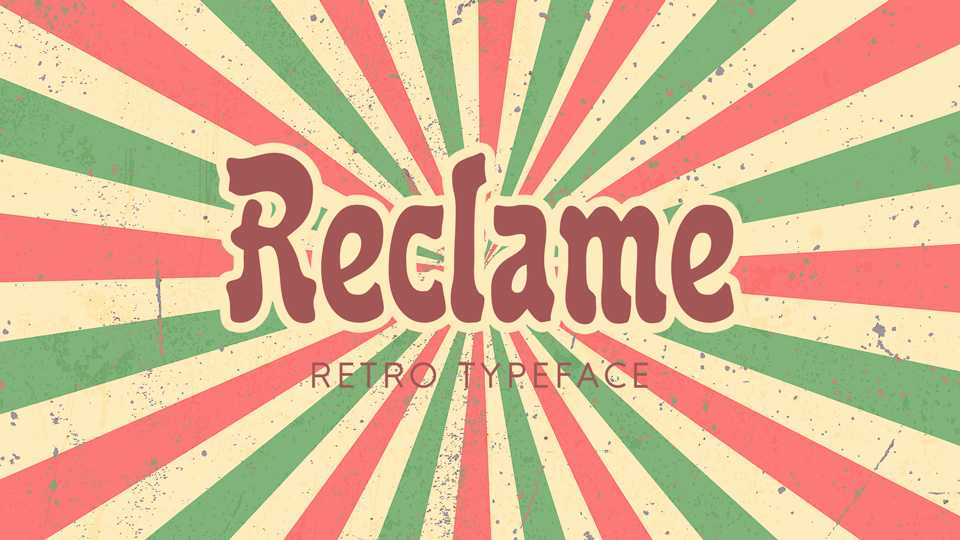
Download Reclame font, a fancy retro typeface based on an early 19th century type. Reclame font looks great for vintage posters, prints and headlines.